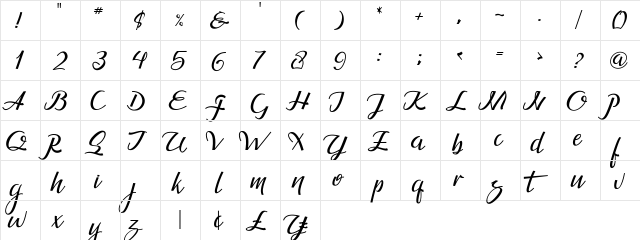
Guarddilla Typeface Demo Regular Font Preview
Guarddilla Typeface Demo Regular
Guarddilla Typeface Demo Regular Font Details
| Foundry | Fittingline Type Supply |
| Designer | Teuku Bahraini |
Design Context for Guarddilla Typeface Demo Typeface
Guarddilla Typeface Demo is a composed and adaptable typeface that performs quietly and consistently across a wide range of design contexts.